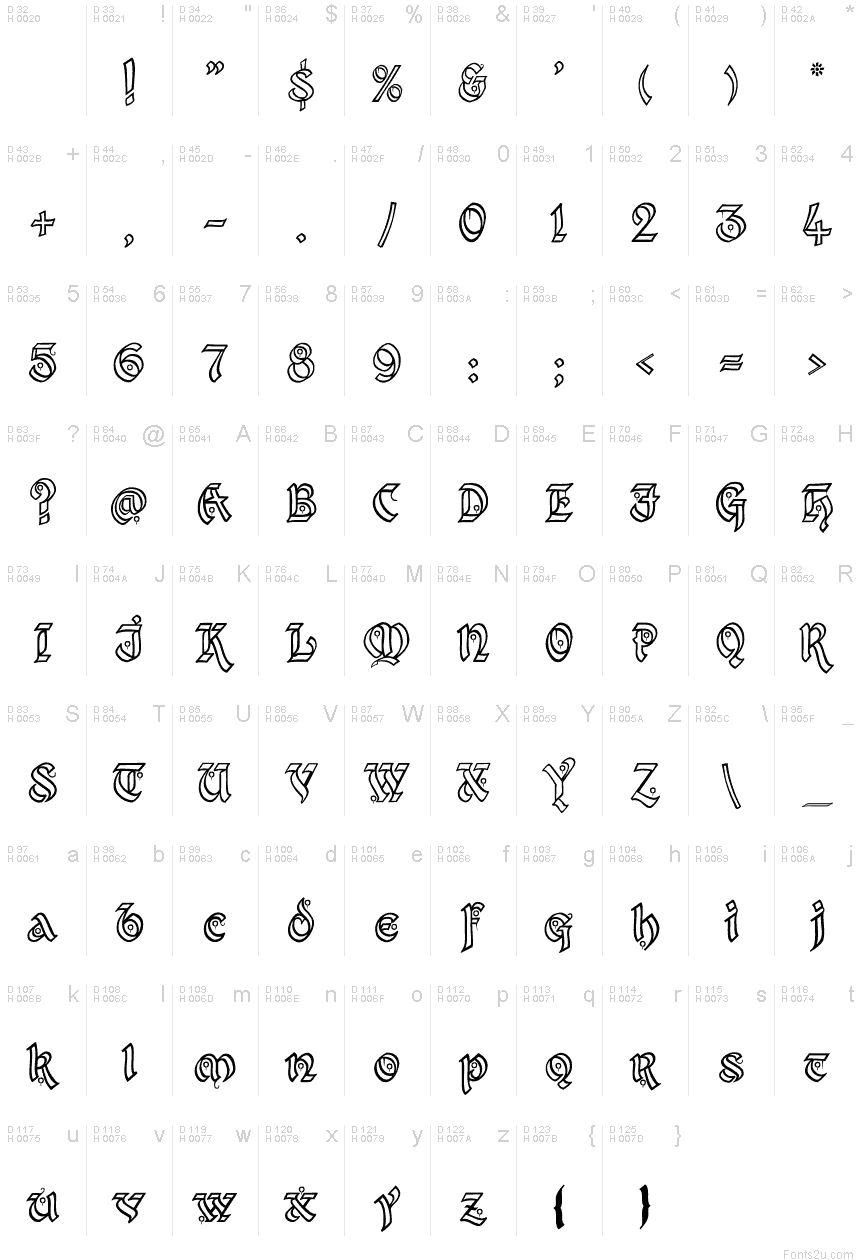
Kingthings Xander Outline
Kingthings Xander Outline font by Kevin King is a free gothic medieval typeface. Its hollow, inked-outline letters feel like they’ve been lifted from an illuminated manuscript, but with a sharp, slightly mischievous twist. Angular strokes, pointed notches, and those droplet-like inner details give each word a hand-drawn, ceremonial weight while still staying airy and readable at larger sizes.
Using Kingthings Xander Outline, titles instantly pick up a fantasy, tavern-sign, or old-world festival vibe. This free font works beautifully for RPG logos, book covers, cosplay or LARP branding, fantasy maps, band posters, and themed event invitations. Keep it large so the outlines and inner spaces stay crisp, and pair it with a simple sans serif for body text to let the gothic forms take center stage.